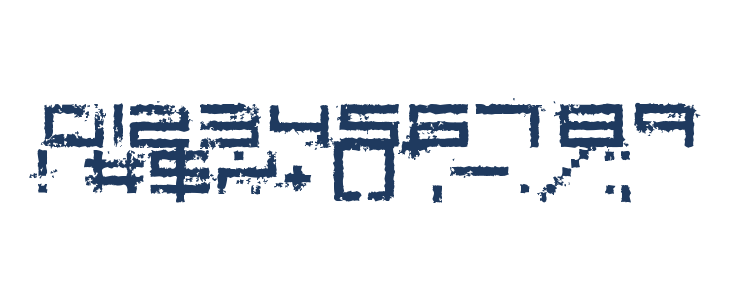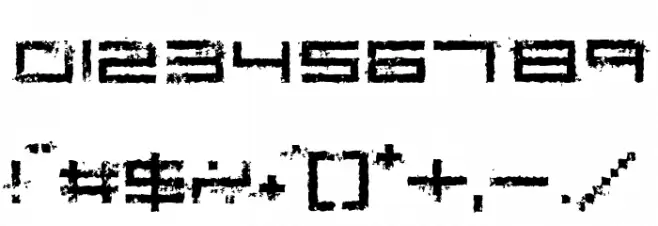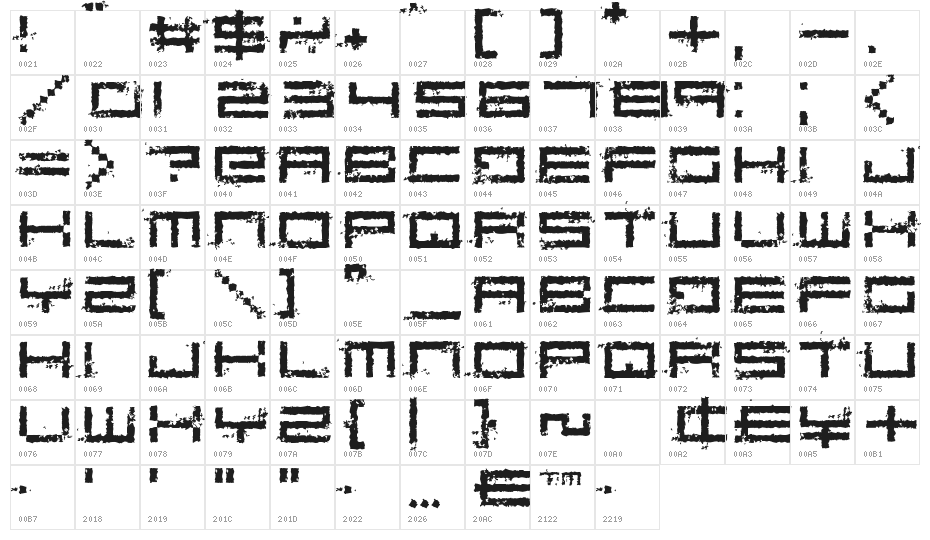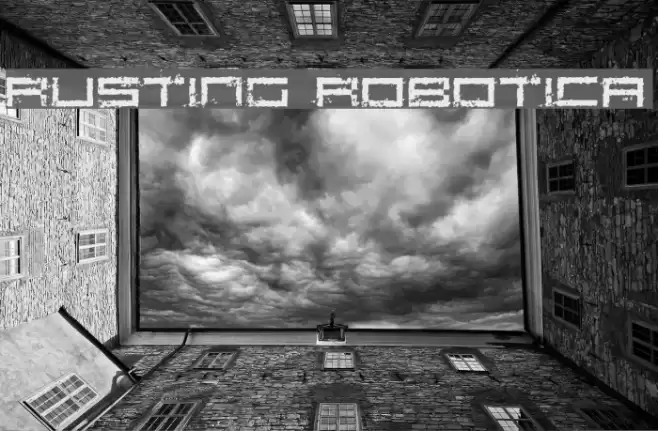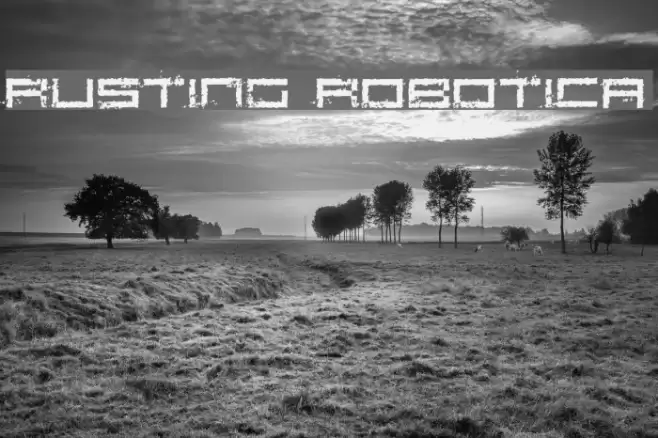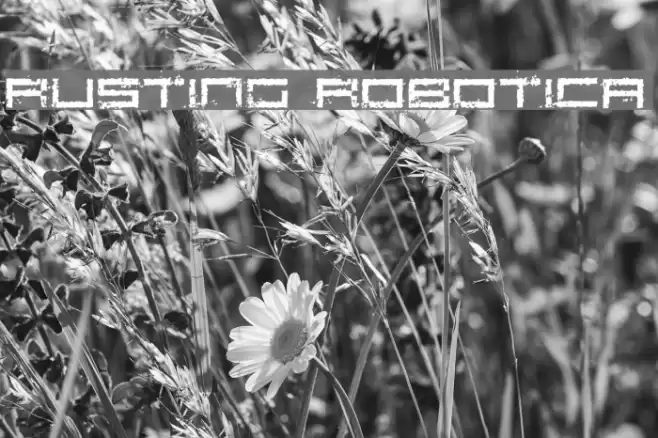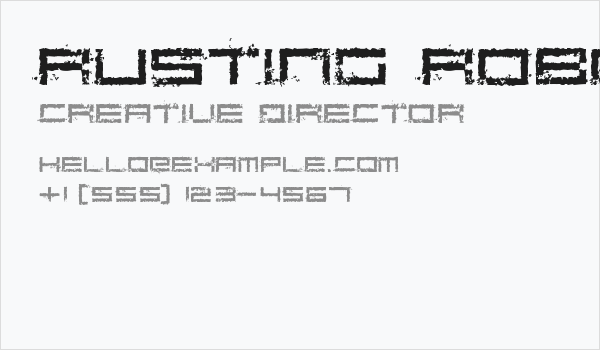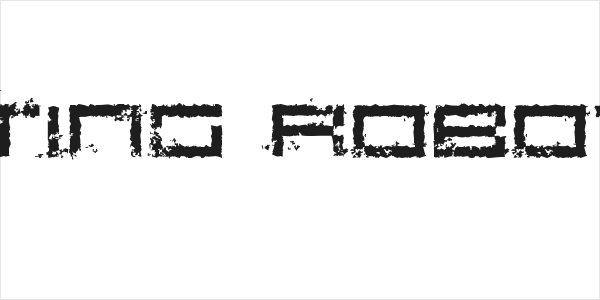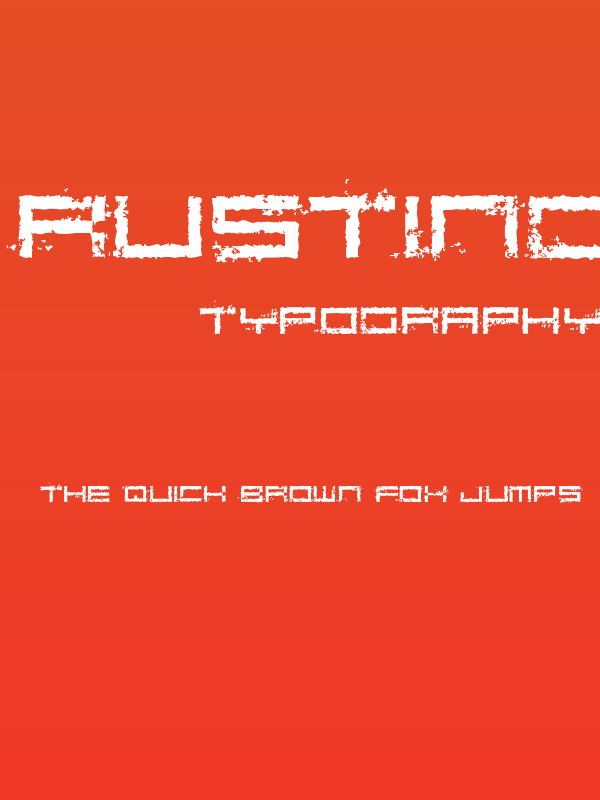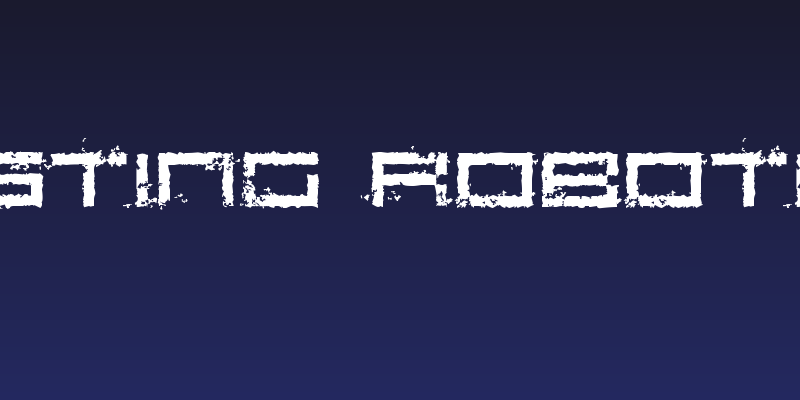
Rusting Robotica Font
Rusting Robotica Description
This font features a distressed, grunge aesthetic with a futuristic twist. The characters are designed with a rough, textured appearance, reminiscent of rusted metal or worn-out machinery. Each letter and number maintains a consistent height and width, creating a uniform look despite the irregular edges. The style is bold and impactful, making it suitable for designs that require a strong, industrial feel. The uppercase and lowercase letters share similar characteristics, with slight variations in form. The numerals and special characters follow the same design principles, ensuring a cohesive appearance across all glyphs.
| Overall Style | Futuristic, Industrial, Grunge |
| Proposed Projects | Ideal for sci-fi themed posters, video game graphics, industrial branding, and edgy apparel designs. |